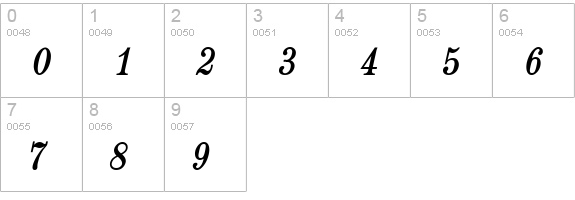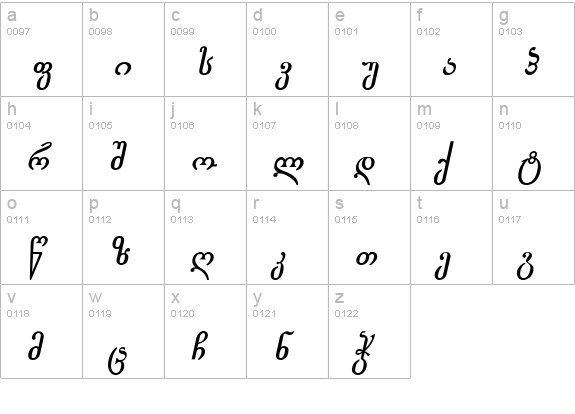
Gogebashvili-ITV Bold Italic Font Details
Gogebashvili-ITV Bold Italic is a strong, high-contrast, italic variant in the Gogebashvili typeface family \xE2\x80\x94 well suited to headlines, attention-grabbing titles, and strong calls-to-action.
Introducing Gogebashvili-ITV Bold Italic, a striking and versatile typeface that combines boldness with elegance. With its distinctive slanted appearance and strong presence, this font is perfect for catching the eye and making a statement in any design project. Designed with attention to detail and precision, Gogebashvili-ITV Bold Italic exudes a sense of modernity and sophistication. The italicized style adds a touch of flair and creativity to your text, making it stand out from the crowd. The best part? Gogebashvili-ITV Bold Italic is available for free download at FontsMarket.com, allowing you to easily access and use this high-quality font in your creative endeavors. Whether you're working on branding, advertising, web design, or any other project, this font is sure to elevate your work and leave a lasting impression. Download Gogebashvili-ITV Bold Italic today and unleash your creativity with this stunning typeface.